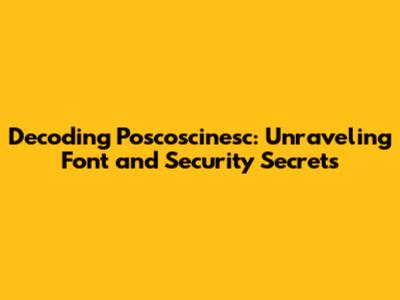
Decoding Poscoscinesc: Unraveling Font And Security Secrets
Hey guys! Let's dive deep into the fascinating world of Poscoscinesc, a term that might seem a bit cryptic at first. But don't worry; we're going to break it down, understand its core elements, and see how they connect. Essentially, we are going to learn about font and security. This is like a treasure hunt, but instead of gold, we're after valuable insights. This guide will uncover everything from the font's design to its role in the security landscape. So, buckle up!
We will examine the essential elements of Poscoscinesc, which are font and security. We'll investigate the font choices that can influence a design's appeal and readability and the significant role that security plays in protecting data and keeping everything safe. Our journey through these concepts is like a thrilling adventure into the digital world. The journey will involve many twists and turns, with each step revealing a new aspect of this intriguing subject. We will delve into design and its importance and the critical nature of security, ensuring a safe and engaging user experience. Whether you're a seasoned professional or just starting, this guide will provide valuable insights and practical knowledge. Join me on an exciting expedition to decode Poscoscinesc. This journey promises to be informative and captivating, offering insights into design, user experience, and the crucial intersection of style and security. We'll explore the font's structure and the underlying security protocols.
Understanding the Basics: Font and Security
Alright, first things first, let's get our foundations straight. When we talk about Poscoscinesc, we're primarily dealing with two key areas: font and security. Think of them as two sides of the same coin, each contributing to the overall user experience and safety of digital content. The font directly impacts the user interface. It is like the clothes we choose to wear. Is it easy on the eyes and helps the information flow smoothly? On the flip side, security is the backbone, the stuff that keeps everything running smoothly and keeps all the data safe from prying eyes.
Font encompasses the design and structure of the typeface used in your design. Font choice impacts readability, aesthetics, and the overall message conveyed. A well-chosen font can make content more engaging, and a poorly selected one can make it difficult for users to read and understand. Font is not just about looks; it is about function and accessibility. Different fonts cater to various needs and tastes, influencing how we perceive and interact with digital content.
Security, on the other hand, deals with protecting information and systems from unauthorized access, use, disclosure, disruption, modification, or destruction. Security includes implementing protocols, encryption, and other measures. Security encompasses safeguarding data integrity and preventing threats. Think of it as the invisible shield that protects your digital world. It's super crucial because it ensures that information is accessible only to those who should have access and that systems remain operational and secure.
These two elements work hand in hand. A secure design can utilize fonts to convey critical security information or warnings, while the choice of font itself can impact the accessibility and usability of security features. The interaction between font and security is fundamental to how we engage with and trust the digital environment, making it crucial to understand both aspects of Poscoscinesc. The interplay ensures an engaging and secure user experience.
The Role of Font in User Experience
Okay, let's talk about the user experience. The font you choose has a huge impact on this. It's like picking the perfect outfit; it sets the tone. A well-chosen font can make your content more engaging, accessible, and enjoyable to read.
First, think about readability. Is the font easy on the eyes, even when reading for a long time? Fonts like Arial or Times New Roman are classic choices because of their readability across different devices and screen sizes. A font that is easy to read reduces eye strain and improves the user experience. Readability involves considering factors such as font size, spacing, and the overall design. When choosing a font, make sure it is legible on all platforms.
Then there's the question of accessibility. Can people with visual impairments or other disabilities easily read the text? Some fonts are designed specifically to enhance accessibility, using clear letterforms and adequate spacing to aid in understanding. Consider including options for users to change font sizes or styles to ensure everyone can access the content.
Aesthetics also play a big role. Fonts can convey a specific mood or style. A sleek, modern font might be perfect for a tech website. A more traditional serif font might be better for an academic journal. The choice of font should align with the brand identity and the message being communicated. Aesthetics are not just about style; they're also about making a good first impression.
Think about how these elements work together. The perfect font is readable, accessible, and fits the aesthetic goals. It’s a key piece in designing a user-friendly and visually appealing digital interface. Choosing fonts can make or break the design. The user experience depends on how well you select the font. A thoughtfully chosen font improves user satisfaction. The font impacts the user’s perception.
Security: The Backbone of Digital Trust
Now, let's switch gears and delve into security. Without it, we wouldn't have the digital world we know and love. Security is the foundation that ensures the integrity, confidentiality, and availability of digital information. It keeps things safe.
Confidentiality ensures that sensitive information is accessible only to authorized individuals. Encryption and access controls are essential tools to keep sensitive data protected from unauthorized access. When data is confidential, you can trust that it is safe from prying eyes. This involves using encryption to protect data in transit and at rest and implementing access controls to restrict who can view the information.
Integrity means that data hasn't been altered or tampered with. Digital signatures, checksums, and other mechanisms are used to verify data, ensuring that it is authentic and reliable. If data has not been modified, then we can have trust in the information we are viewing. It is key to maintain the trustworthiness of any system.
Availability means that systems and data are accessible when needed. This is the cornerstone of a functional digital environment. Redundancy, disaster recovery plans, and denial-of-service (DoS) protection are all critical to ensure data is always accessible. This protects data by ensuring it is accessible when needed.
These principles are essential in building and maintaining trust in any digital environment. Security isn’t just about protecting against external threats; it is about building a secure foundation to ensure operations are reliable and information is safe. Security features and practices support user confidence and engagement. This trust is crucial for success in the digital world.
How Font and Security Intersect: Practical Applications
So, where do font and security meet? In some cool and practical ways, actually!
Think about things like password fields. The font used for inputting passwords can affect security. A font that clearly distinguishes between similar-looking characters (like 'O' and '0' or 'l' and '1') can help users avoid mistakes, improving password strength and reducing the chance of security breaches. This makes it easier to spot errors.
Then there's the use of fonts in security warnings and notifications. A bold, attention-grabbing font can be used to notify users about potential security threats or critical system updates. These visual cues are essential for grabbing the user’s attention and ensuring they are aware of any potential risks. Font design is used to make warnings stand out.
Font can also be used in digital certificates and security protocols. Certain fonts can enhance the readability of the security information, such as the certificate details or encryption keys, ensuring users can verify that their connection is secure. Font can indicate the legitimacy of a website.
The combined effect of font and security is pretty powerful. It enhances both the user experience and the level of security. From password input to security alerts, the right font choices ensure that users understand the information, are protected, and feel safe. The combined effort helps create a secure and user-friendly digital environment.
Designing for Security: Font Considerations
When you're designing with security in mind, the right font can make a big difference. Here are some key considerations to keep in mind:
Readability of Characters: Ensure that characters are distinct, especially those used in passwords or security codes. Fonts that clearly differentiate between similar-looking characters are key. This reduces the chance of errors and improves overall security. This includes considering different character shapes. Choose fonts that have a clear design.
Font Weight and Style: Bold or italic fonts can be used strategically to draw attention to critical security information or warnings. This is useful for emphasizing important details and ensuring that users don’t miss crucial alerts. A bold font helps draw attention.
Consistency and Branding: The font choices should align with the overall brand identity to ensure a unified user experience. Consistent font choices help maintain the integrity of the design. This creates a trustworthy and recognizable environment. Consistent font choice boosts user trust.
Accessibility Considerations: Font size, spacing, and contrast are crucial for ensuring that security information is accessible to everyone, including those with visual impairments. These considerations ensure that all users can comprehend the security information. Accessibility increases user comprehension.
When designing, always consider your font choices with a focus on both usability and security. By carefully selecting your fonts, you can help improve overall security and enhance the user experience, creating an environment that is both safe and user-friendly.
Security Best Practices for Font Management
Alright, let’s talk about keeping your fonts safe and secure. Here are some best practices for managing fonts and minimizing risks:
Font Source Verification: Only download fonts from trusted sources. Verify that the font files are legitimate and don’t contain any malware or other malicious code. Always ensure the fonts are safe. You must check the source of the font.
Regular Updates: Keep your fonts updated. Font vendors often release updates to fix security vulnerabilities. Regular updates can help keep your systems safe from new threats. Ensure you are using the latest version.
Font Access Control: Implement strict access controls to limit who can install or modify fonts on your systems. This restricts unauthorized changes and mitigates the risk of malicious fonts. Access control is vital for safety.
Font File Security: Store font files securely and implement file-level access controls to prevent unauthorized access or modification. This includes encrypting storage and using secure file-sharing practices. This protects fonts from unauthorized access.
Monitoring and Auditing: Regularly monitor font-related activities and audit your systems to detect any suspicious behavior or unauthorized changes. Regular monitoring helps to catch anything unusual.
By following these best practices, you can create a safe environment. This ensures your fonts are safe and your users are protected from potential threats. Following security practices is key for font management.
Future Trends: Font and Security in the Digital World
The digital world is constantly evolving, and so are the trends in font and security. Here’s what we might see in the future:
AI-Driven Font Design: Artificial intelligence is playing a growing role in font design, creating custom fonts optimized for readability, accessibility, and security. AI helps to design fonts.
Dynamic Fonts: Dynamic fonts that change based on user behavior or security protocols are emerging. These fonts can adapt in real-time. Dynamic fonts will likely play a big role.
Font as a Security Element: Fonts can be used to convey dynamic security information, such as multi-factor authentication codes or real-time security alerts. Fonts can be part of security protocols.
Biometric Fonts: Imagine fonts that are unique to each user and could be used for authentication. Biometrics could be a potential future trend.
These future trends highlight the dynamic nature of font and security. As technology progresses, there will be more exciting and innovative ways. These will enhance both user experience and security. Font and security are constantly changing.
Conclusion: The Synergy of Font and Security
So, there you have it, guys! We've covered the basics of how font and security work together, what to keep in mind when designing, and what to expect in the future. The relationship between font and security is dynamic. Font and security are key for any design.
It's all about finding that balance. By understanding the intersection of these two concepts, we can create interfaces. These interfaces are not only beautiful and easy to use but also provide a safe and secure experience.